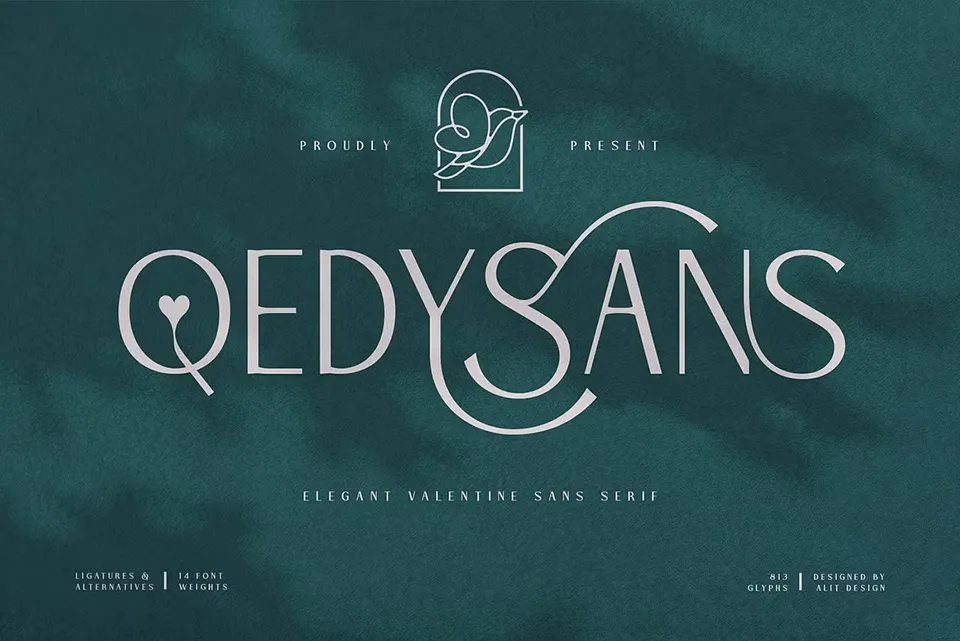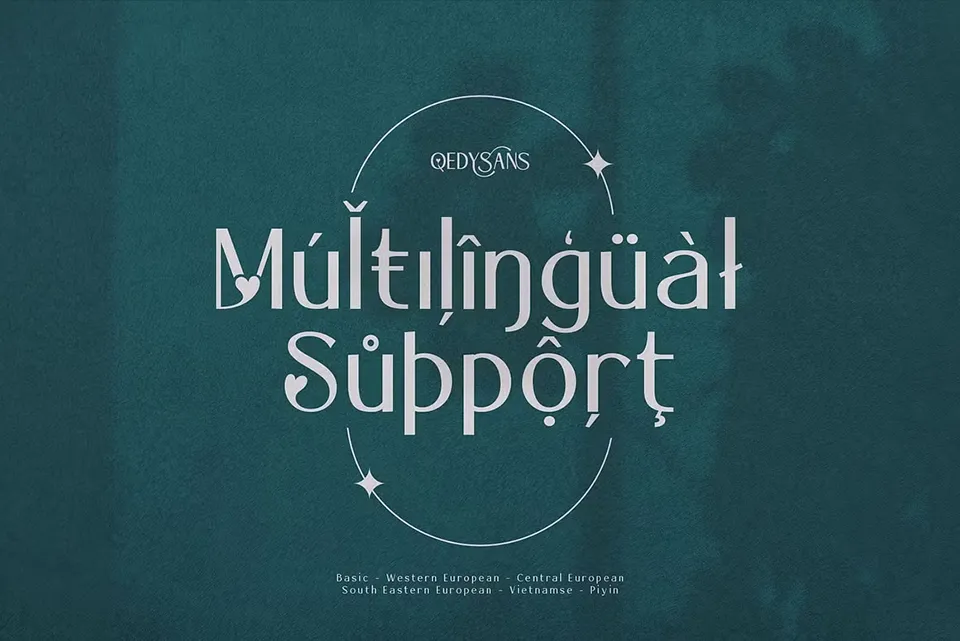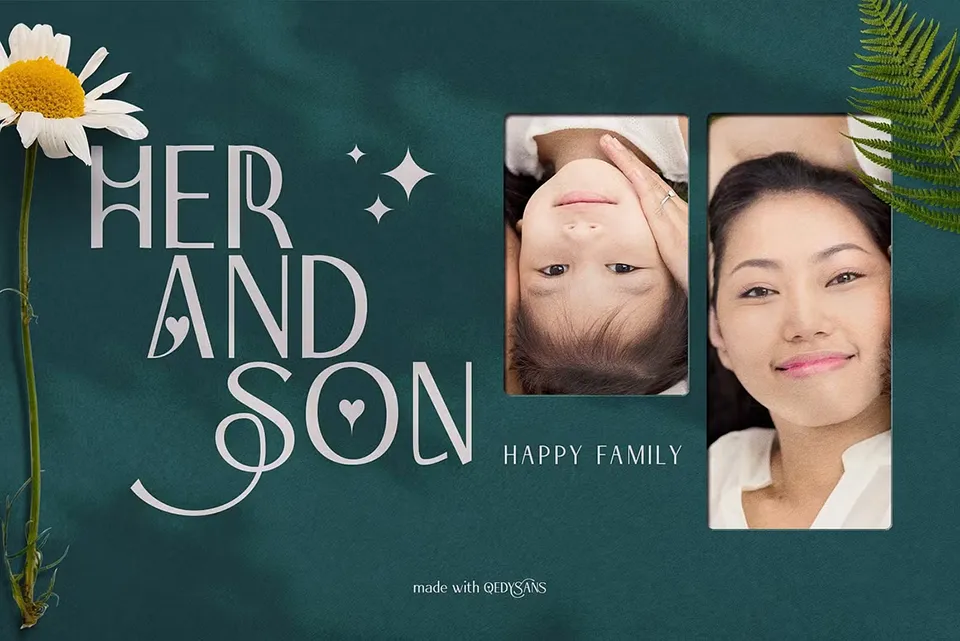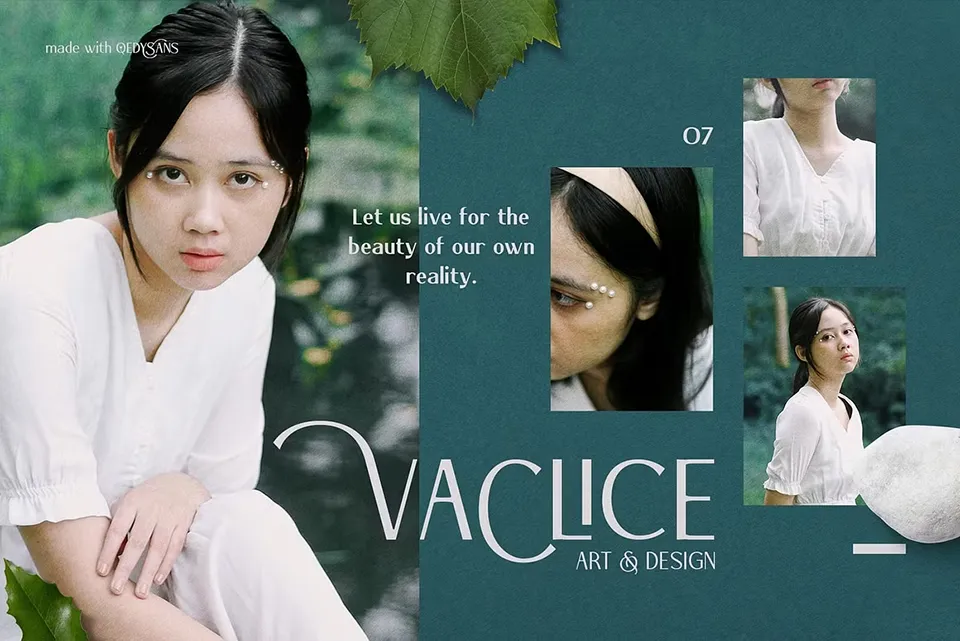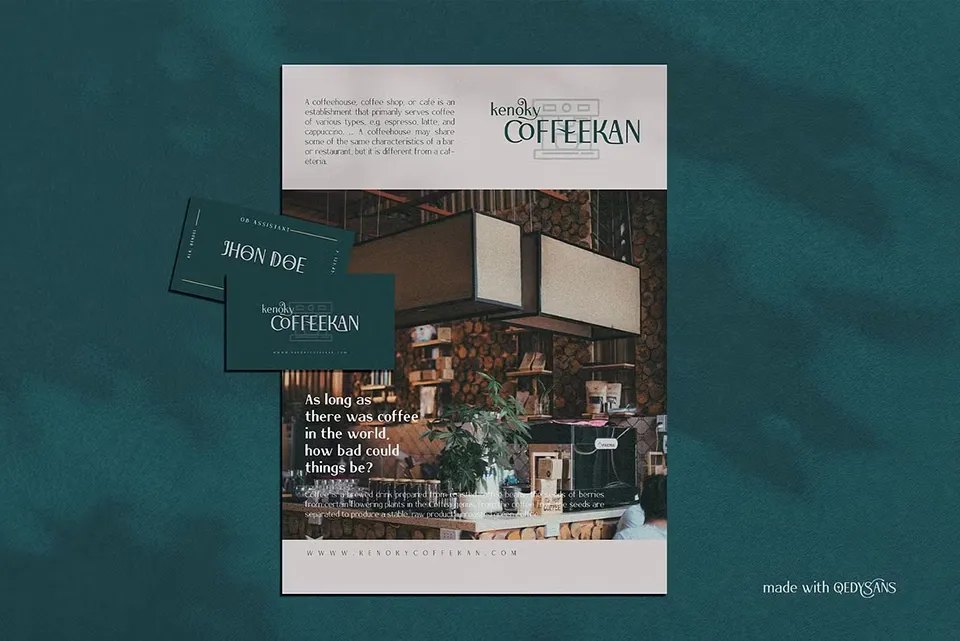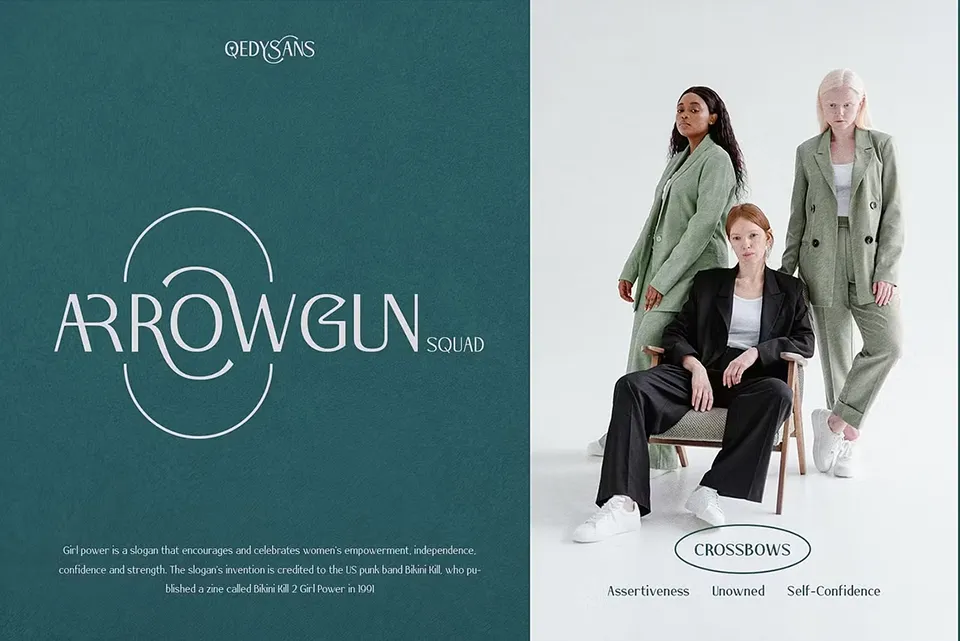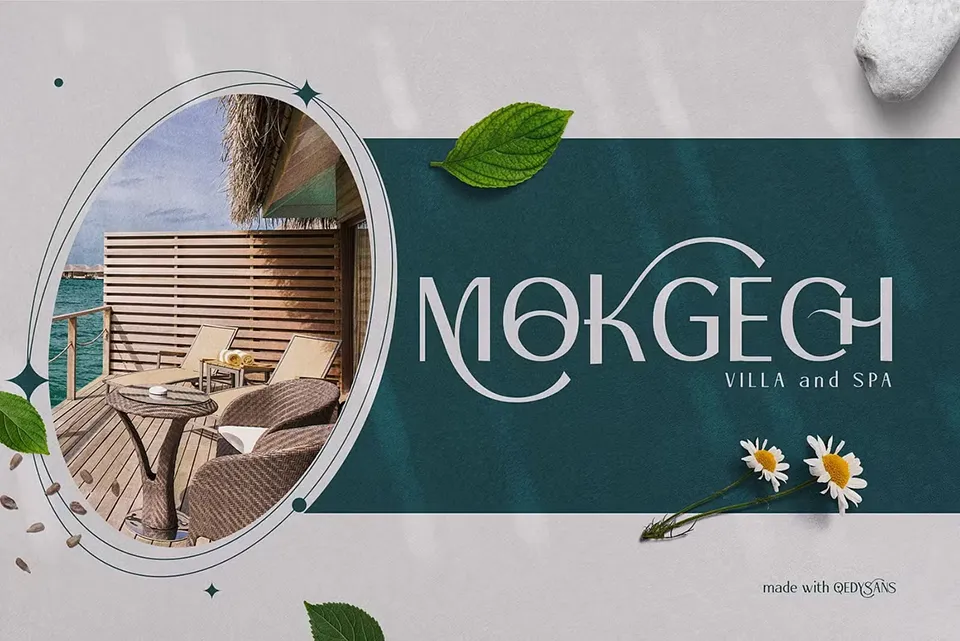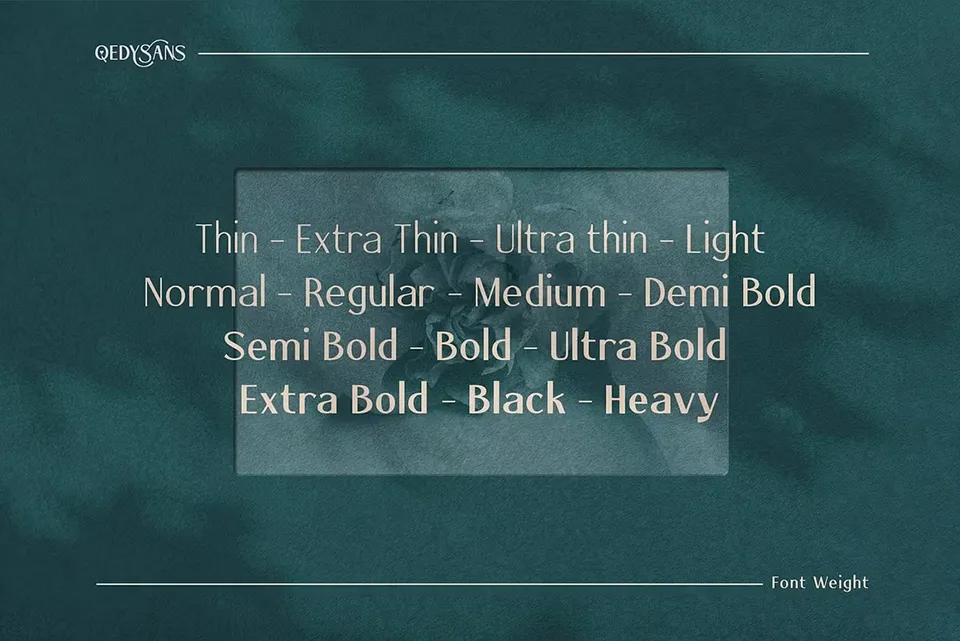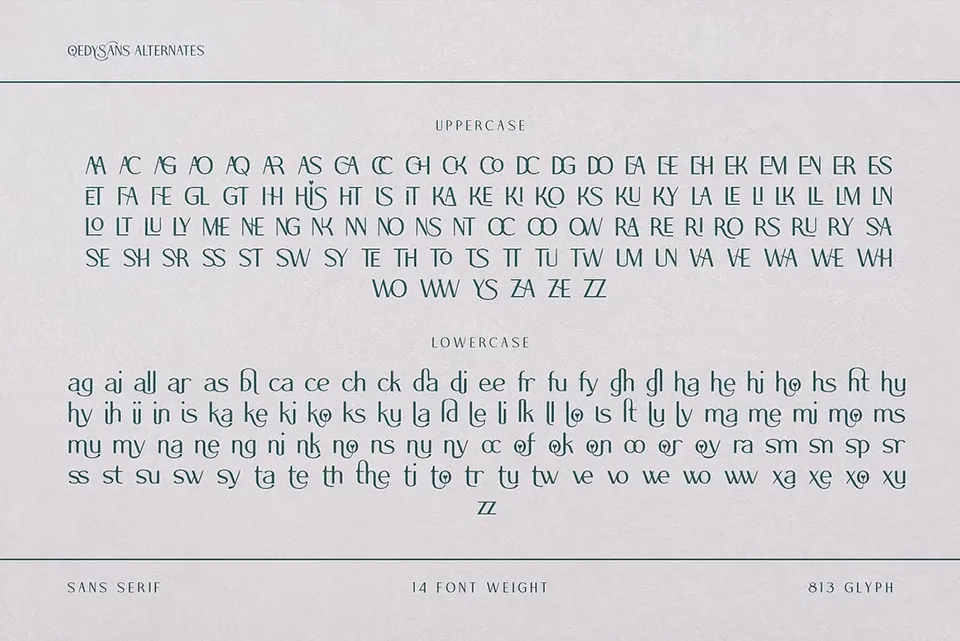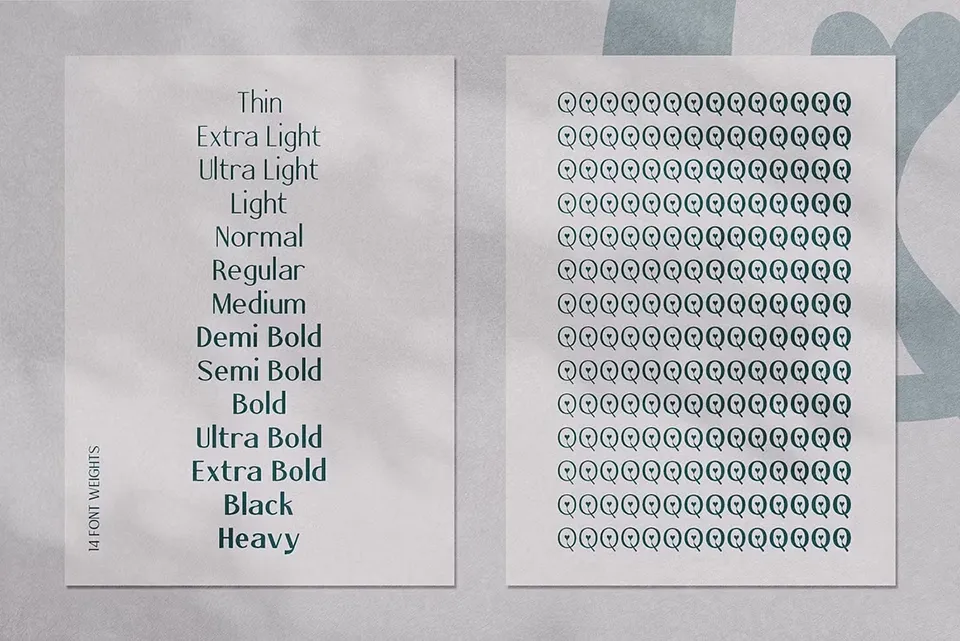
Qedysans Font
Qedysans is a sans-serif font with an elegant and romantic concept, boasting 813 glyphs. It features numerous alternative characters, including swashes, ligatures, and supports multilingualism. Moreover, Qedysans offers 14 families ranging from Thin to Heavy, making it suitable for both body and header text.
This font is ideal for design concepts that emphasize elegance, simplicity, minimalism, and romance. It can be effectively used in various applications such as wedding card designs, shop signs, logotypes, and promotional materials on platforms like Instagram.